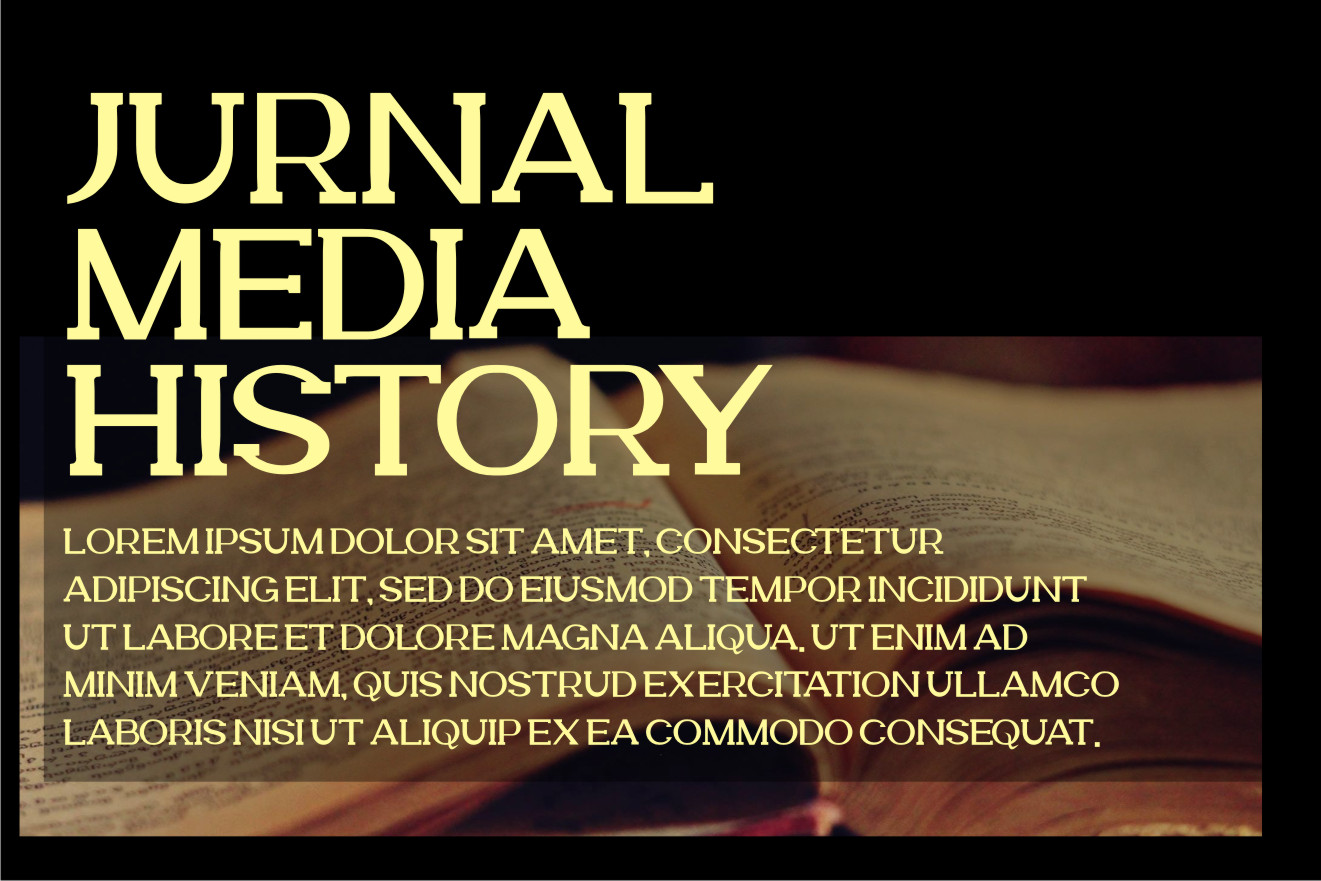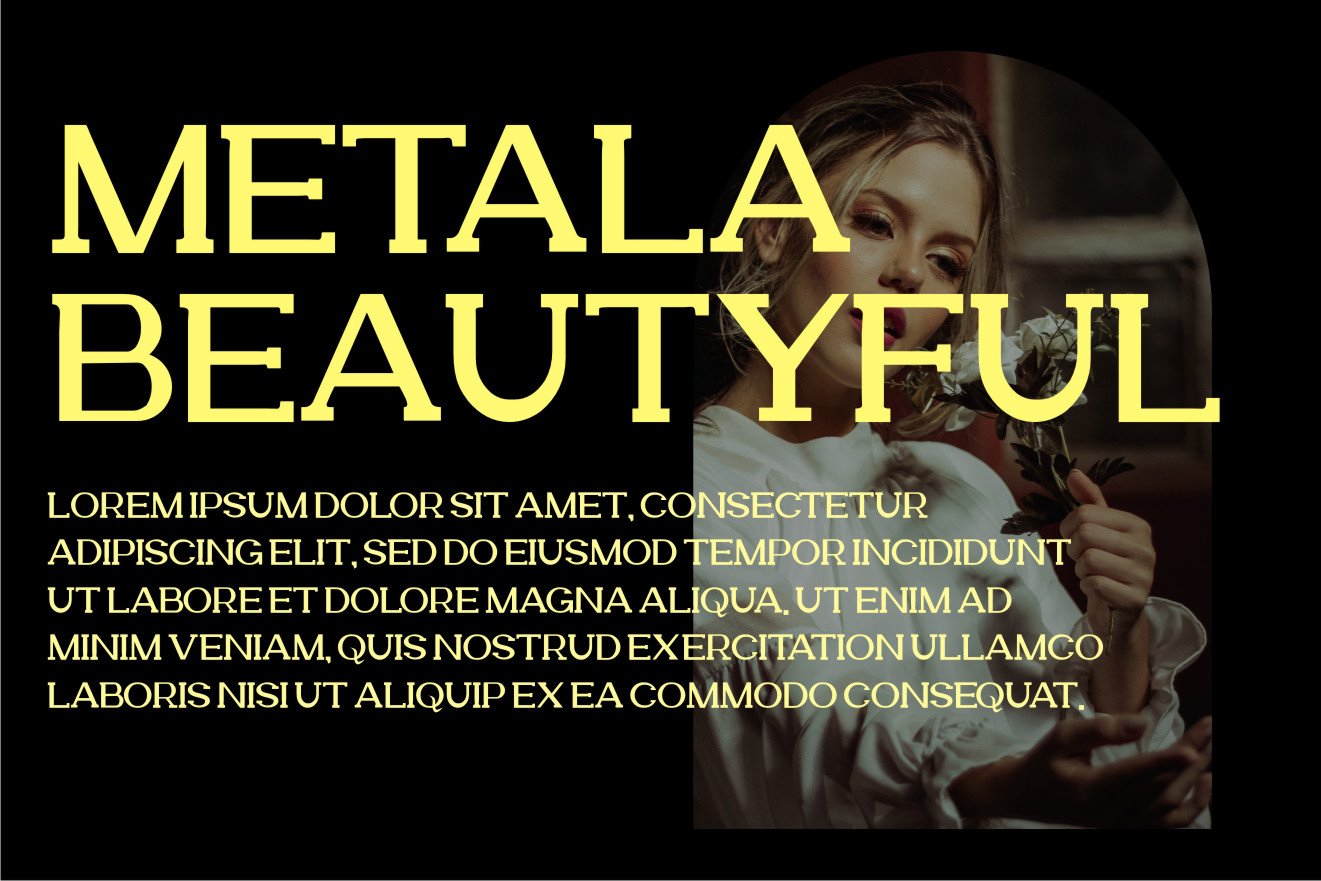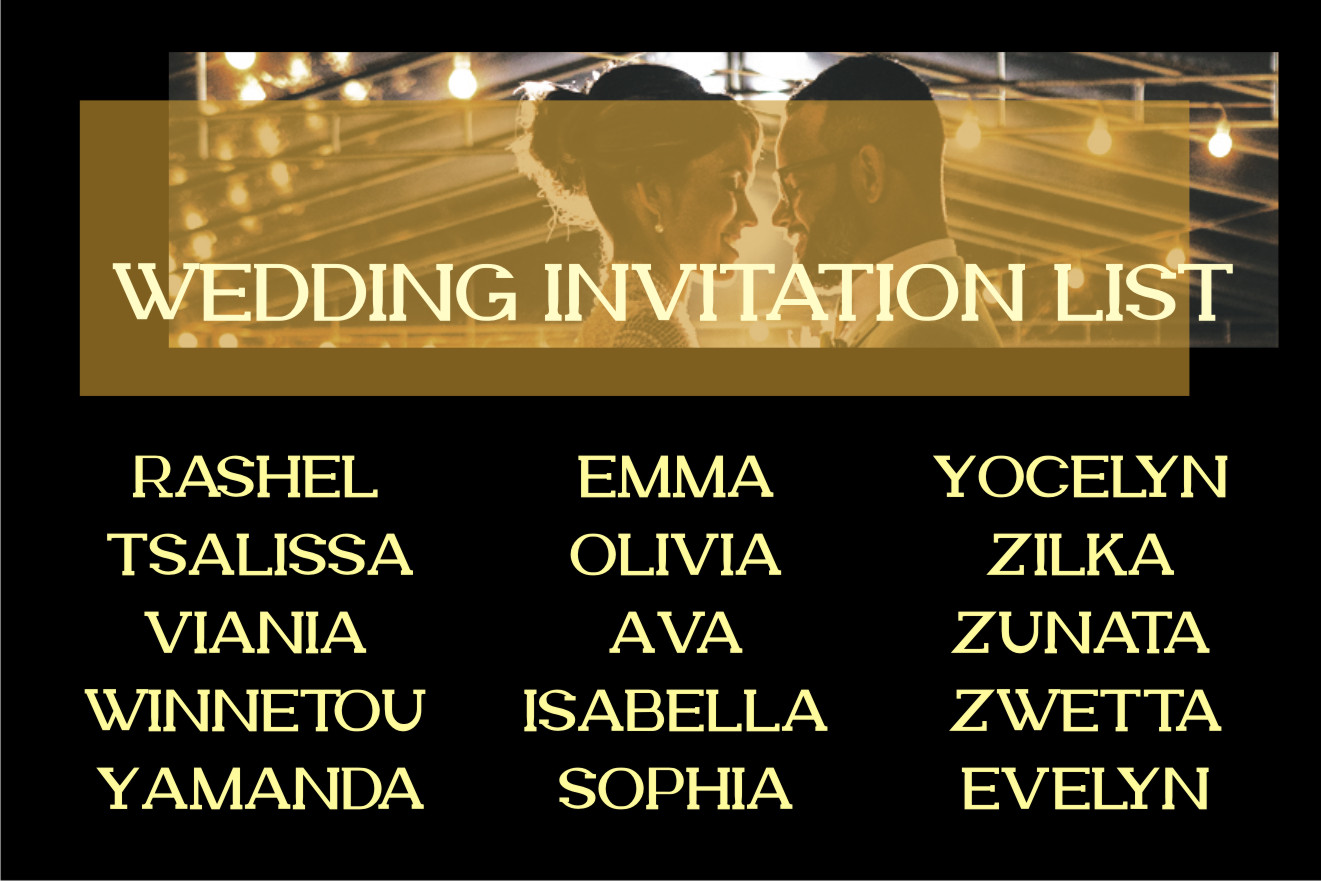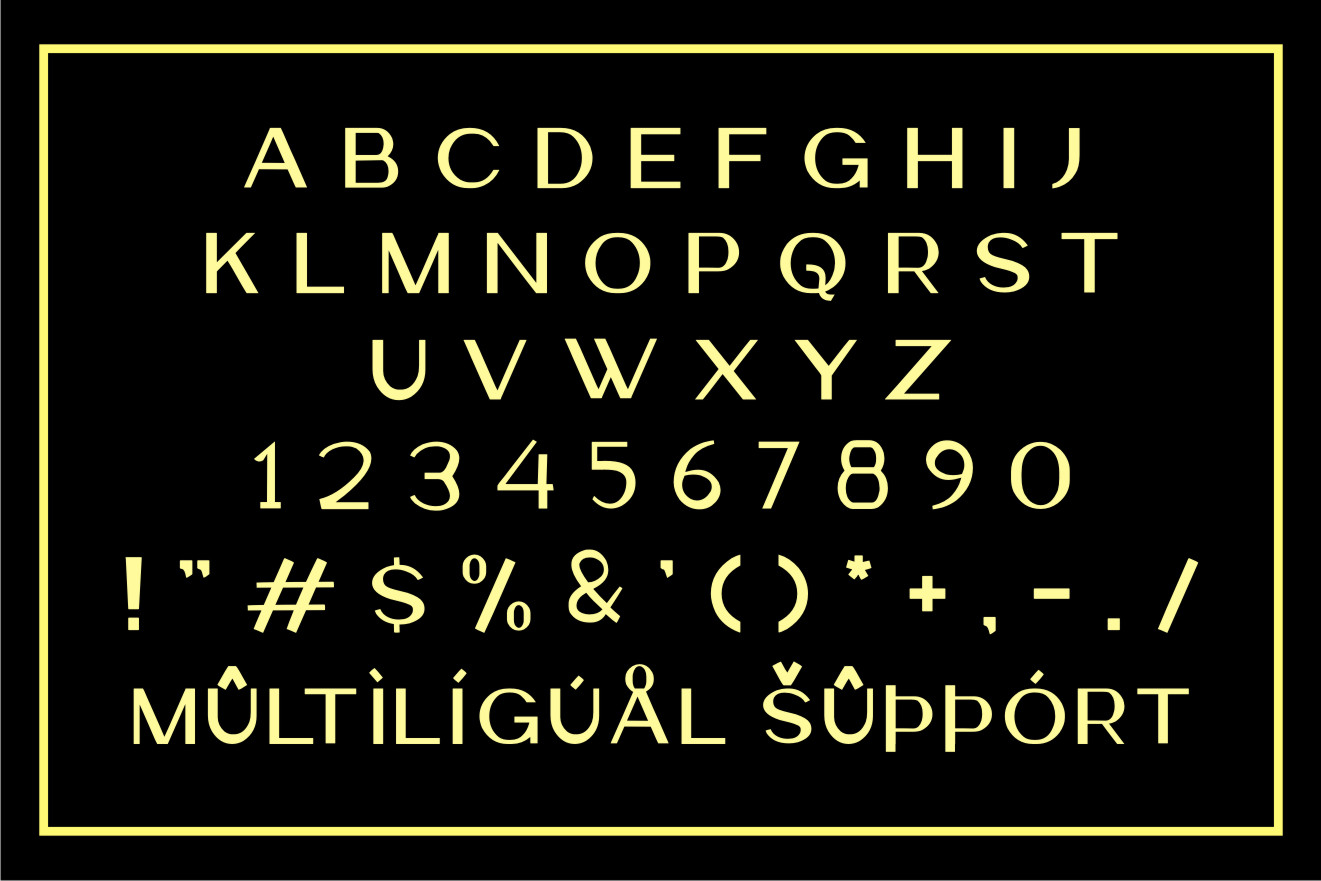
Artela Font
Artela Font is an authentic and bold serif font. Whatever the topic, this font will be a wonderful asset to your font library, as it has the potential to enhance any creation.